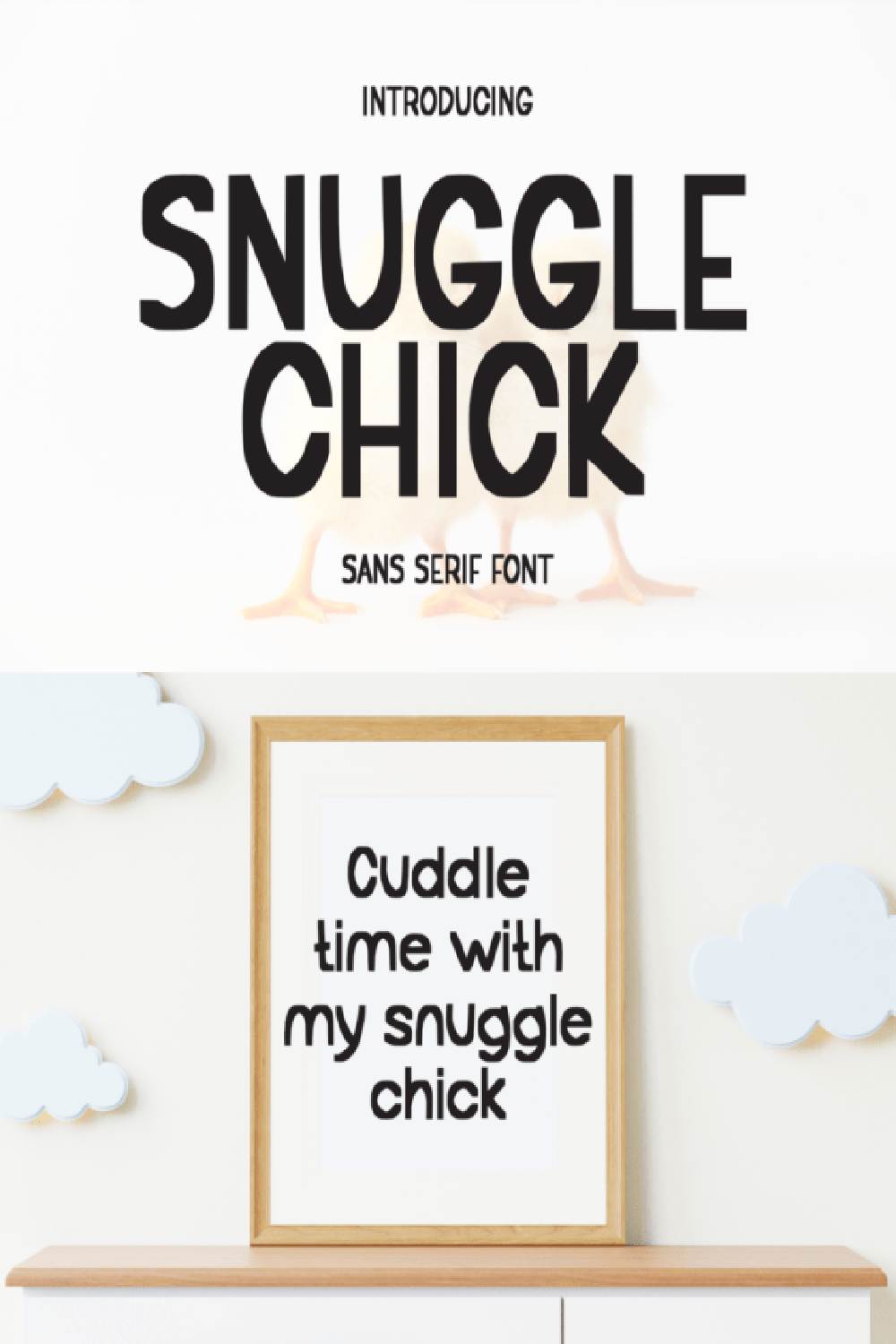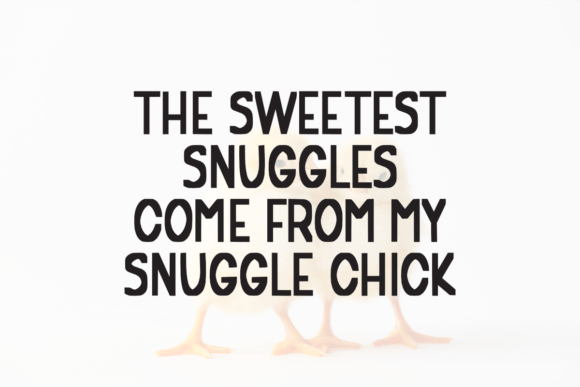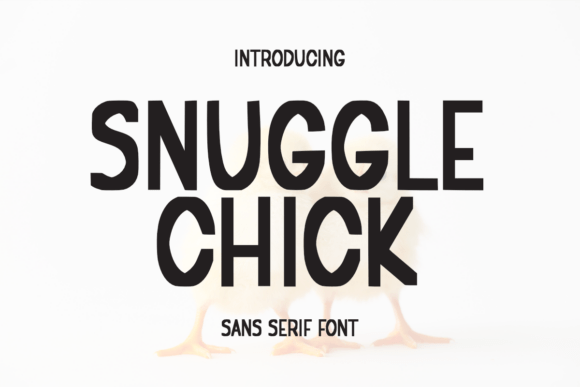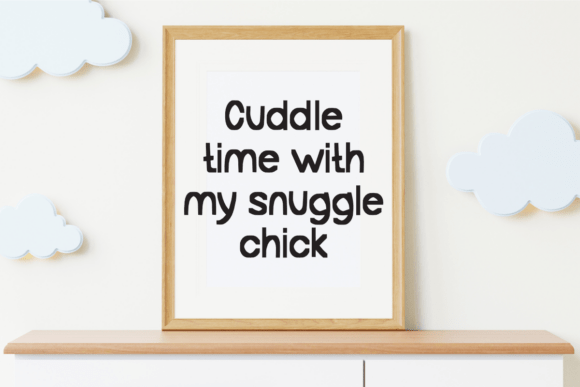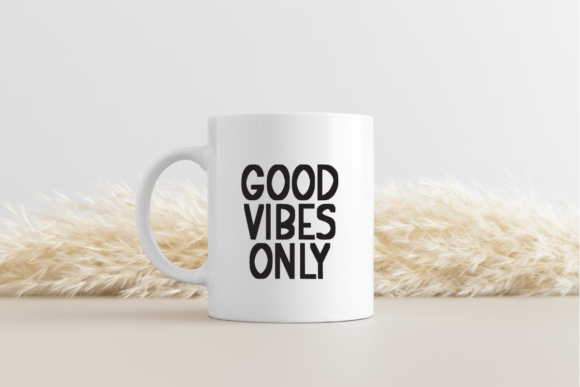
Snuggle Chick Font
About the Snuggle Chick Font
Explore the possibilities with Snuggle Chick Font, a font that offers both beauty and functionality. Snuggle Chick is a playful handwritten font that’s perfect for crafts, planners, KDP, stickers, greeting cards, and more. With its cute and friendly style, it works great for Cricut, sublimation, and creative DIY projects. Ideal for crafters, designers, and makers!